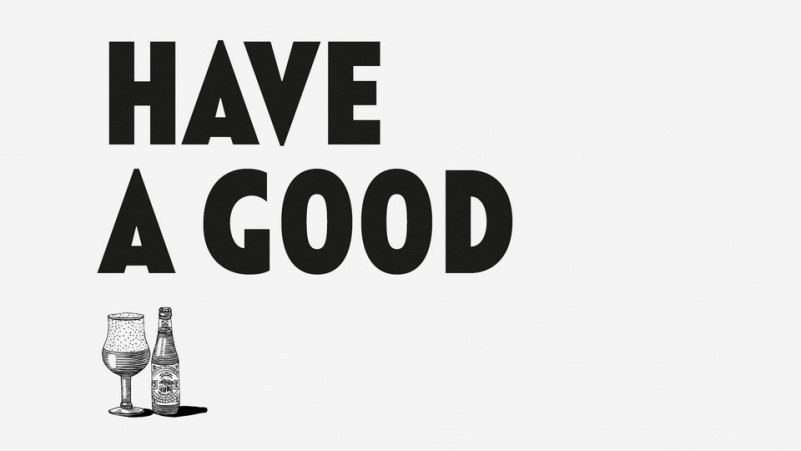
Trappist Sans Serif Font
This is a bold, challenging and emotional visualization typeface, ideal for movie posters and headlines. If you are looking for letters with attitude, Trappist Font is the perfect fit. Trappist Sans Serif Font with a structural logic of its own: a fusion of pure geometry and optical balance. Font is suitable for Logo, greeting cards, quotes, posters, branding, name card, stationary, design title, blog header, art quote, typography.